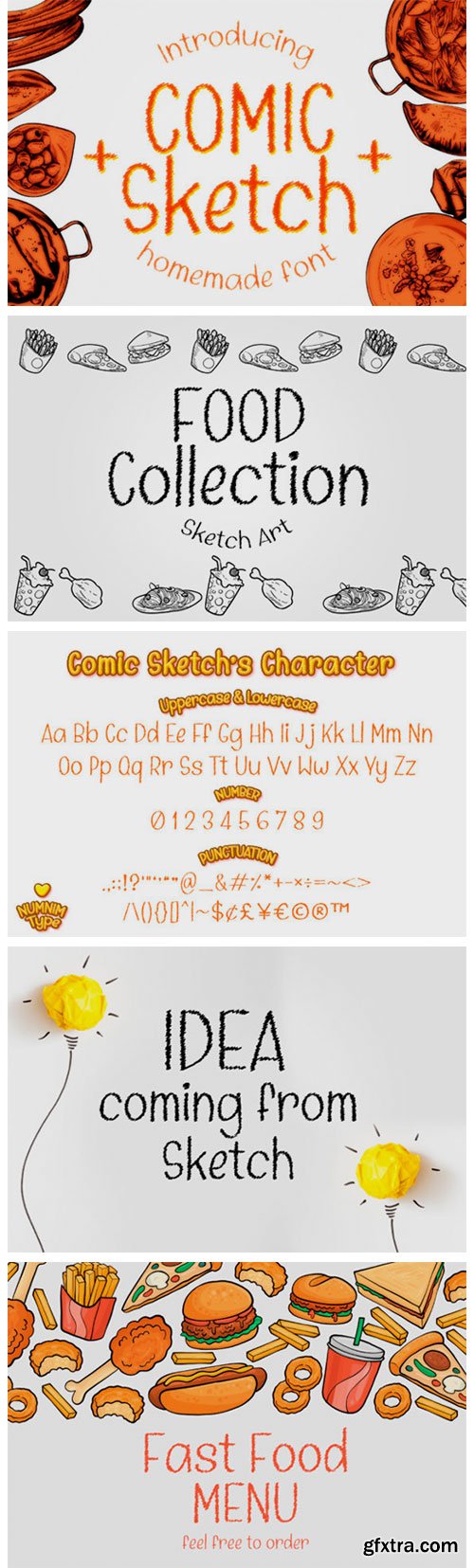
Comic Sketch Font
Comic Sketch embodies fun, quirkiness and authenticity. This enchanting display font will turn any creative idea into a true standout.